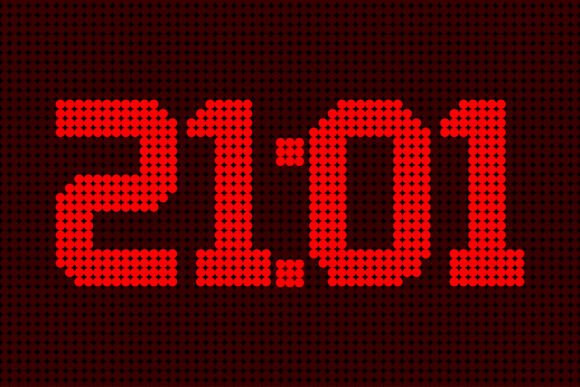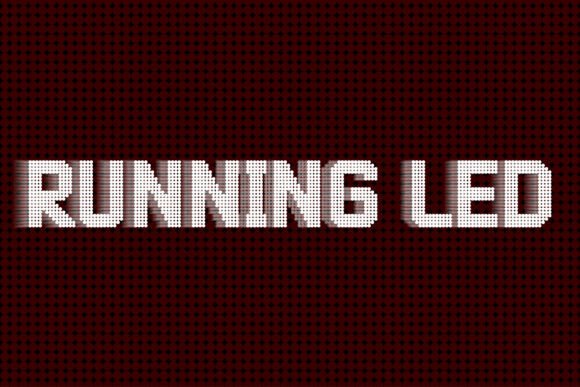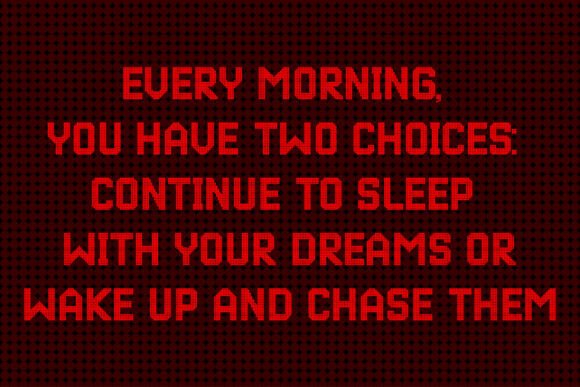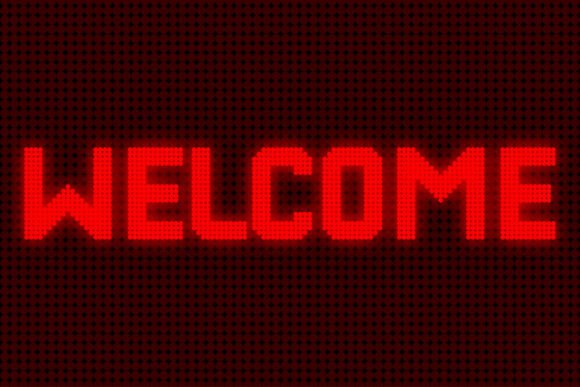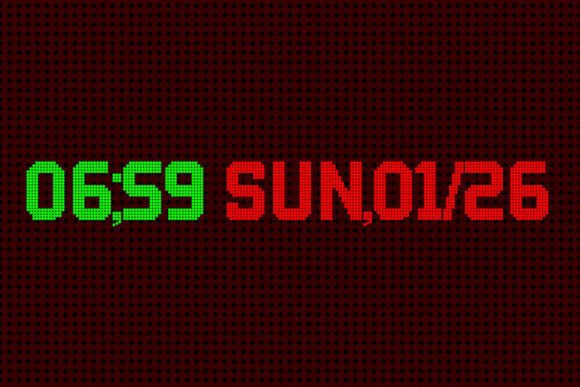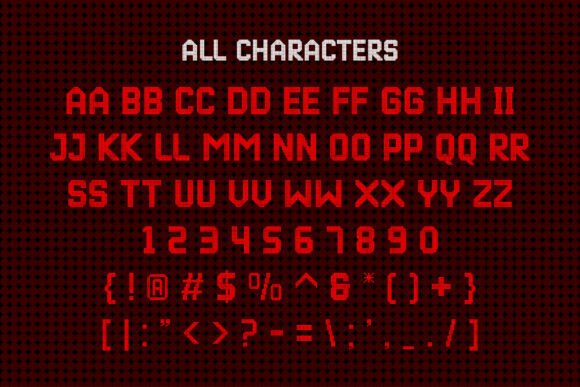
Discover the Timeless Elegance of Digital Wall Clock Font
In the realm of digital design, fonts play a pivotal role in conveying messages, evoking emotions, and creating lasting impressions. Among the myriad of fonts available, the Digital Wall Clock font stands out as a beacon of sophistication and elegance. Inspired by the ubiquitous digital timekeepers found in places of worship, government offices, and homes worldwide, this font brings a touch of modernity and refinement to any design project.
The Genesis of Digital Wall Clock Font
The Digital Wall Clock font is an ingeniously crafted display font that captures the essence of digital timekeeping devices. Its design is rooted in the sleek, clear, and readable displays that have become an integral part of our daily lives. Whether it’s the solemn ambiance of a worship place, the formal setting of a government office, or the cozy intimacy of a bedroom, digital wall clocks are omnipresent, guiding us through our day with precision and reliability.
Unleashing the Charm of Digital Wall Clock Font
With the Digital Wall Clock font, designers and crafters can infuse their wall lettering designs with a mesmerizing charm that exudes sophistication and allure. This font is not just a typographic element; it’s a statement piece that can elevate everyday designs into luxurious visual experiences. Imagine adorning a bedroom wall with a inspirational quote, a nursery with a child’s name, or a living room with a favorite lyric, all set in the elegant and modern style of the Digital Wall Clock font.
Key Features of Digital Wall Clock Font
- Elegant Design: The font boasts a sleek and contemporary design, reminiscent of high-end digital displays.
- Readability: Its clear and simple lettering ensures excellent readability, making it perfect for wall designs and large-format prints.
- Versatility: Suitable for a wide range of applications, from interior decor to advertising and digital media.
- Customization: Offers flexibility in terms of size, color, and texture, allowing for endless creative possibilities.
Applications of Digital Wall Clock Font
The versatility of the Digital Wall Clock font makes it an excellent choice for various design projects. Here are a few ideas to get you started:
- Wall Decors: Create stunning wall quotes, names, or phrases for bedrooms, living rooms, or nurseries.
- Signage: Design eye-catching signs for businesses, events, or public spaces.
- Digital Media: Use the font in video intros, presentations, or social media graphics to add a professional touch.
- Crafting: Incorporate the font into your crafting projects, such as scrapbooking, card making, or DIY home decor.
Tips for Maximizing the Impact of Digital Wall Clock Font
To truly leverage the potential of the Digital Wall Clock font, consider the following design tips:
- Contrast is Key: Choose background colors that provide sufficient contrast to ensure the text stands out.
- Size Matters: Experiment with different sizes to achieve the desired visual impact.
- Color Selection: Select colors that complement the theme of your design and evoke the desired emotional response.
- Experiment with Effects: Don’t be afraid to try out different textures, gradients, or shadows to add depth to your design.
| Font Name | Digital Wall Clock Font |
| Author | Patlot Digital.Studio |
The Digital Wall Clock font is a game-changer for designers and crafters looking to add a touch of elegance and modernity to their projects. Its sleek design, excellent readability, and versatility make it an ideal choice for a wide range of applications. By incorporating this extraordinary font into your designs, you’ll not only enhance their aesthetic appeal but also imbue them with a sense of sophistication and allure. So, why wait? Unleash the mesmerizing charm of the Digital Wall Clock font and transform your designs into luxurious visual experiences.